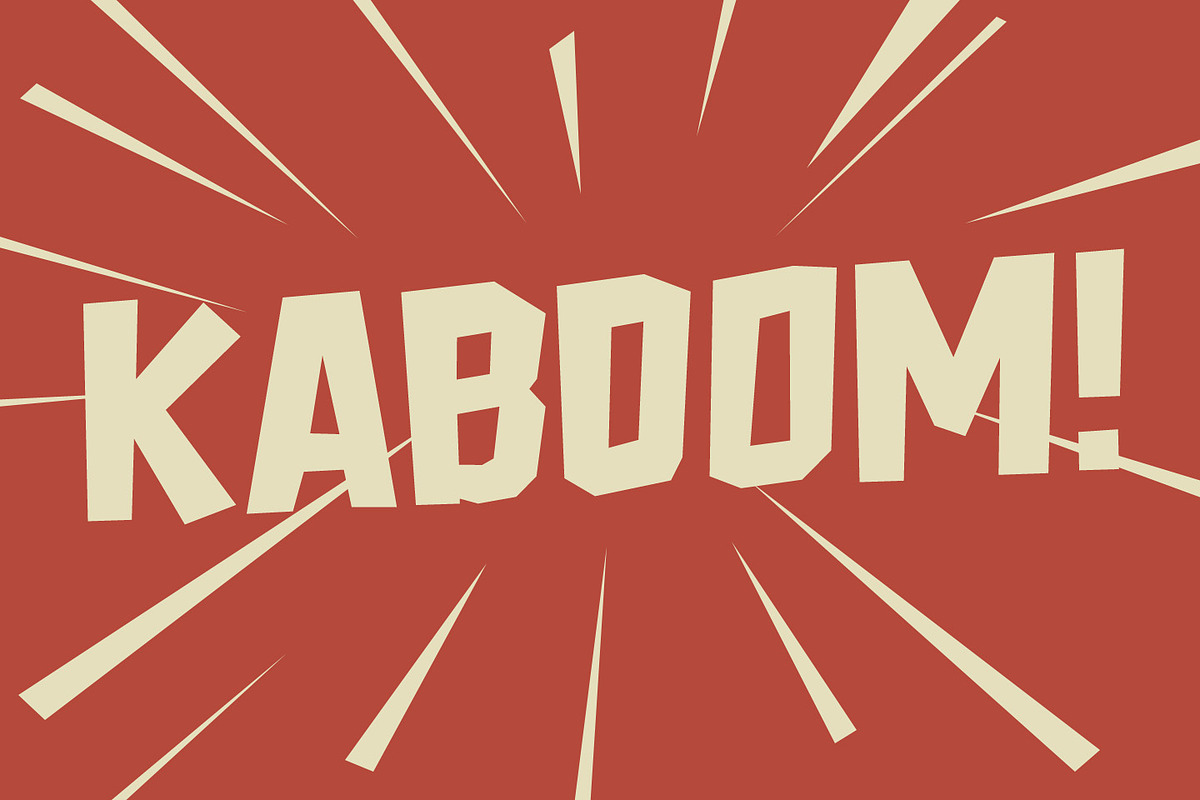
Freich
Freich is a mighty bold font with vintage vibes.
Perfect for posters with super hero, rebellious, or propaganda themes. Its sharp and strong letter forms will make any statements more powerful.
- Special Ligatures: CH EA LA LE LH LI LL LM LN LO LU ST TH TI TU